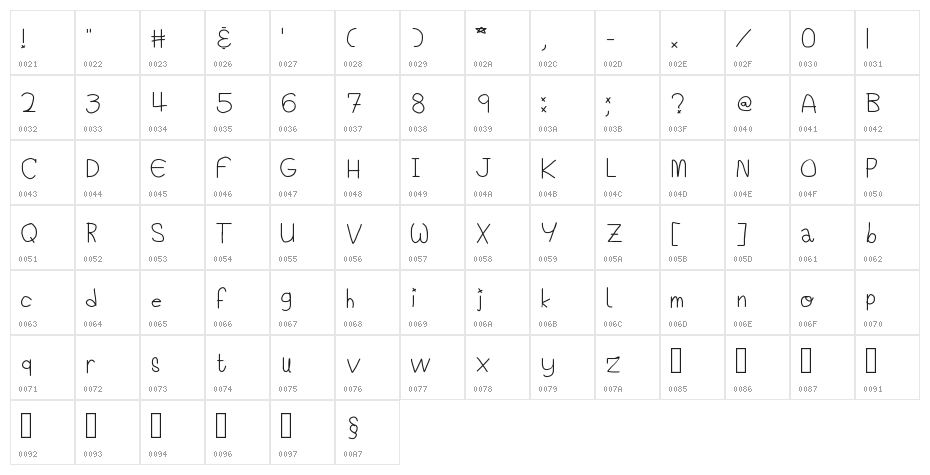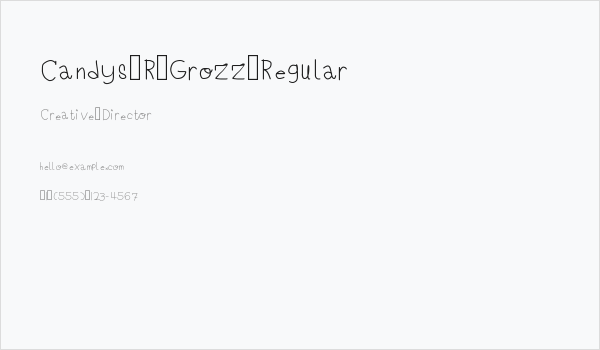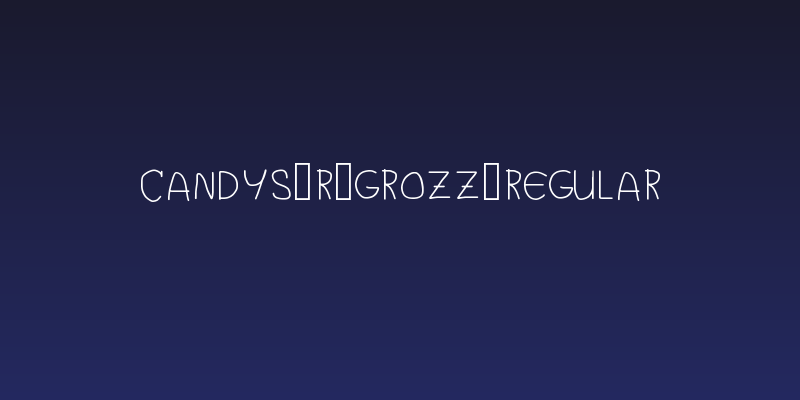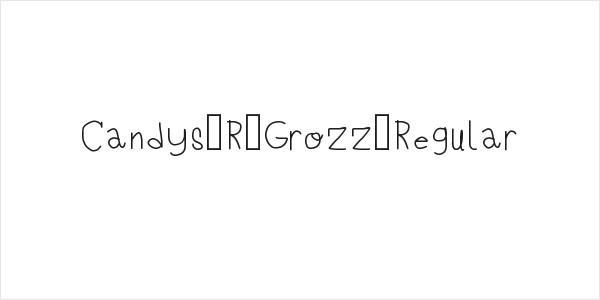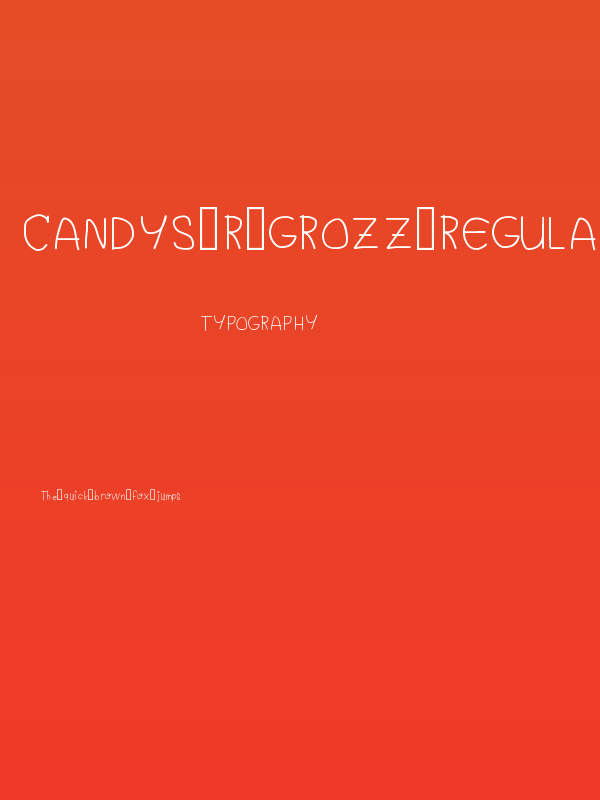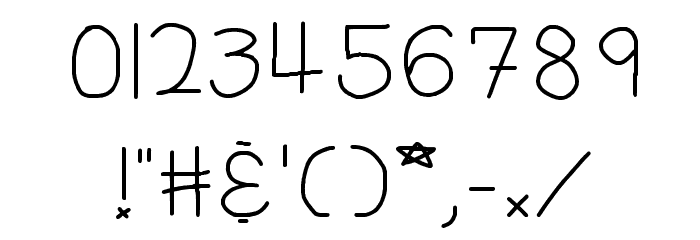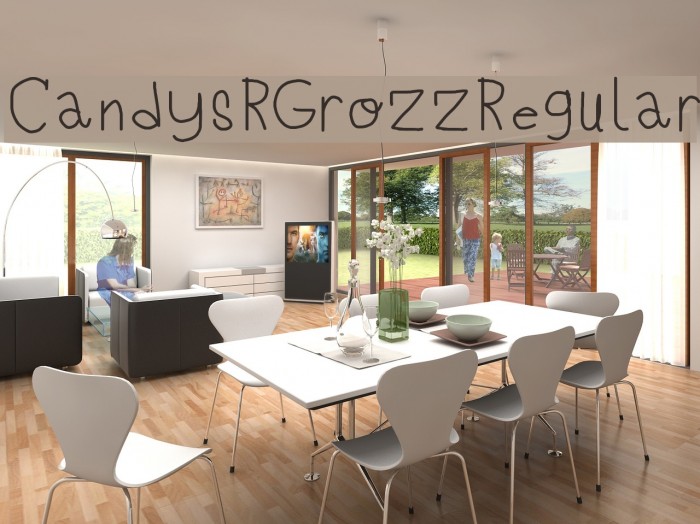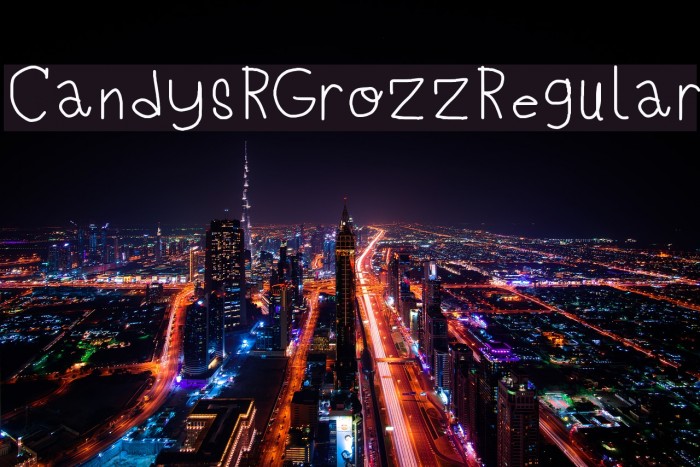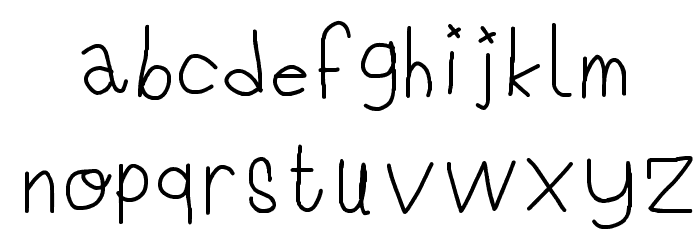
Candys R Grozz Regular Font
Candys R Grozz Regular Description
This playful and whimsical font features a hand-drawn aesthetic with irregular strokes and a casual feel. The letters are slightly uneven, adding a charming, informal touch. Uppercase and lowercase letters maintain a consistent style, with rounded edges and a slightly tilted appearance. The numbers and special characters follow the same playful design, making it suitable for creative projects. The font's unique character is enhanced by its light and airy strokes, giving it a friendly and approachable vibe.